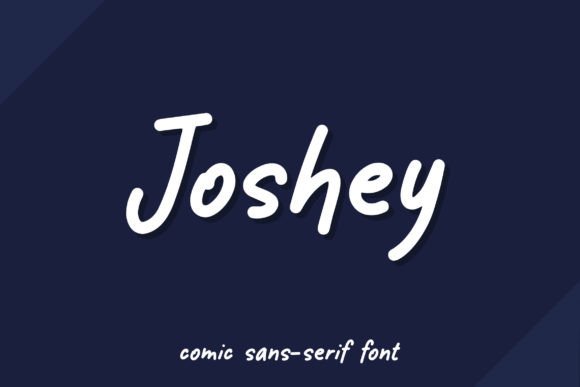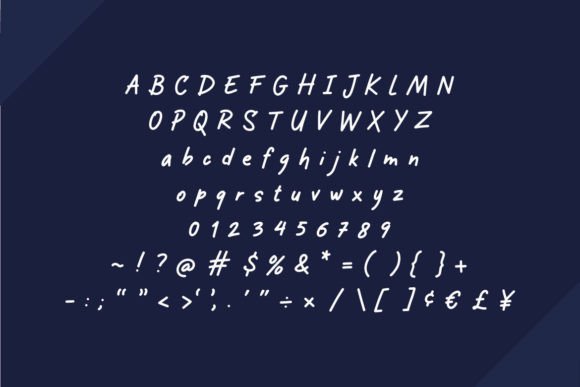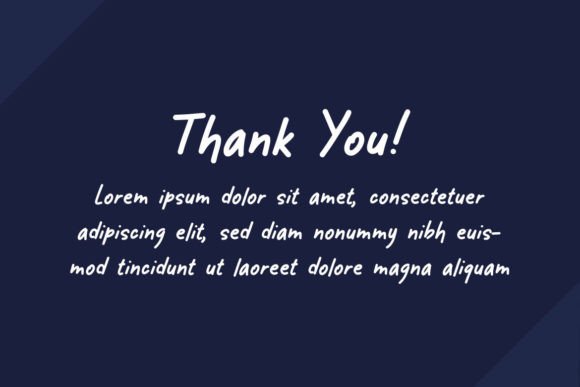
Joshey Font
About Joshey Font
Joshey is an exceptional handwritten font that infuses a contemporary flair into every word it graces. This font offers a versatile canvas that can enhance a wide array of creative projects, making it an indispensable choice for designers and creators across diverse industries. Whether you’re engaged in designing captivating book covers, crafting striking music album covers, producing delightful children’s books, conceptualizing eye-catching posters, creating compelling advertisements, curating engaging social media content, designing memorable logos, or exploring various other creative avenues, Joshey is the font that can truly elevate your work.
What sets Joshey apart is its unique modern character. It carries an innate sense of sophistication and style that can transform the visual impact of your designs. With its sleek and contemporary design, this font adds a touch of elegance and refinement to any project, making it particularly suitable for those aiming to leave a lasting impression in their visual communication.
In the realm of book covers and children’s books, Joshey brings stories to life with its modern and captivating style, captivating readers and sparking their imagination. Musicians can harness the font’s modernity to create album covers that demand attention and leave an indelible mark. Poster designs benefit from Joshey’s ability to convey messages with style and finesse, while advertisers can utilize it to craft campaigns that resonate effectively with their target audience.
In today’s digital age, Joshey seamlessly integrates with social media platforms, where it adds a contemporary and refined feel to content, making it both shareable and engaging. Moreover, Joshey can serve as the cornerstone of a brand’s visual identity, functioning as a logo that conveys a sense of modernity and innovation.
One of Joshey’s most remarkable features is its adaptability. It can effortlessly transition from a casual and approachable tone to a more sophisticated and modern one, making it suitable for a broad spectrum of creative projects. Its application extends across different industries, including publishing, music, advertising, and beyond.
In conclusion, Joshey is not just a font; it’s a creative asset that injects elegance and modernity into your projects. Its contemporary appeal makes it an invaluable tool for anyone seeking to make a memorable impact through visual communication. Embrace the modern charm of Joshey and explore the limitless possibilities it offers to enhance your creative endeavors.